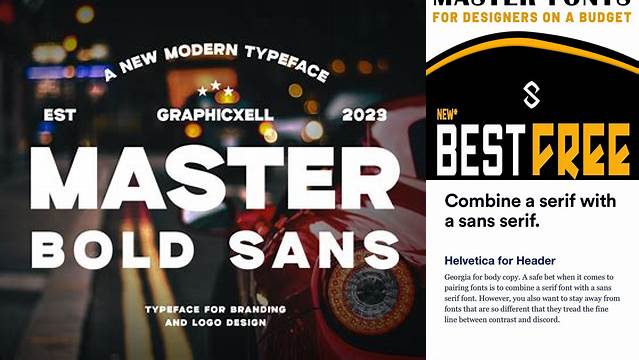
Master Fonts: Free Downloads For Stunning Typography
Hey guys! Are you on the hunt for master fonts free download options to level up your design game? You've landed in the right place! In this guide, we're diving deep into the world of fonts, exploring where you can snag them for free, how to choose the perfect ones for your projects, and some essential tips for using them effectively. Let's get started!
Why Fonts Matter: The Power of Typography
Before we jump into the nitty-gritty of free font downloads, let's quickly chat about why fonts are so crucial in the first place. Fonts, or typefaces, are the visual representation of your words. They're not just about legibility; they're about conveying a mood, a personality, and a brand identity. Think about it: a playful, bubbly font might be perfect for a children's book, but it would look totally out of place on a corporate website. Similarly, a sleek, modern font can add a touch of sophistication to a design, while a vintage-inspired font can evoke a sense of nostalgia. Choosing the right font is like picking the perfect outfit for an occasion—it sets the tone and makes a lasting impression.
In the digital age, where visual communication reigns supreme, typography has become an even more critical element of design. Whether you're creating a website, a marketing campaign, a social media post, or even a simple document, the fonts you choose can significantly impact how your message is received. A well-chosen font can grab attention, enhance readability, and reinforce your brand's message. On the flip side, a poorly chosen font can make your design look amateurish, confuse your audience, and even undermine your credibility. So, if you're serious about making a statement with your designs, paying attention to your typography is an absolute must. Plus, with so many amazing free font resources available, there's really no excuse not to explore the possibilities and find the perfect fonts to bring your creative vision to life. Experimenting with different font pairings, font sizes, and font styles is a fantastic way to add depth and personality to your designs.
Where to Find Master Fonts for Free
Now for the exciting part: where can you find these amazing fonts without spending a dime? The internet is a treasure trove of free font resources, but it's essential to know where to look and how to navigate the licensing agreements. Here are some of my favorite places to find master fonts free download options:
1. Google Fonts
Google Fonts is a massive library of open-source fonts that are free to use for personal and commercial projects. This is my go-to resource for finding high-quality, web-friendly fonts. The interface is super user-friendly, allowing you to easily browse, filter, and preview fonts. You can search by category (serif, sans-serif, display, handwriting, etc.), font properties (thickness, slant, width), and even language. Plus, Google Fonts integrates seamlessly with popular design tools like Adobe Creative Suite and web development platforms, making it a breeze to incorporate them into your projects. One of the best things about Google Fonts is that you can be confident that the fonts are optimized for the web, meaning they'll load quickly and display correctly across different browsers and devices. With hundreds of fonts to choose from, you're sure to find some gems that perfectly suit your needs.
When exploring Google Fonts, don't be afraid to experiment with different font pairings. Combining a serif font with a sans-serif font, for example, can create a visually appealing contrast. You can also use the “Pairings” tab on the Google Fonts website to see suggested font combinations. Another great feature of Google Fonts is the ability to download the fonts directly to your computer for use in desktop applications. This is particularly useful if you're working on print projects or using design software that doesn't directly integrate with Google Fonts. Finally, remember to check the licensing information for each font you download, even though they are generally free to use, it's always a good practice to be aware of any specific usage restrictions. With its vast selection, ease of use, and rock-solid reliability, Google Fonts is an indispensable resource for any designer or content creator.
2. Font Squirrel
3. DaFont
DaFont is a classic in the free font world, boasting a massive collection of fonts contributed by designers from all over the globe. It's a fantastic resource for finding unique and creative fonts that you might not find elsewhere. However, it's essential to pay close attention to the licensing terms for each font on DaFont, as they vary widely. Some fonts are free for personal use only, while others are free for commercial use. The website itself is straightforward to navigate, with a simple search bar and a categorized browsing system. You can browse fonts by themes like “Fancy,” “Foreign Look,” “Techno,” and “Bitmap,” which can be helpful if you're looking for a specific style. DaFont is particularly popular for finding display fonts, which are fonts designed for headlines and other prominent text elements.
One thing to keep in mind when using DaFont is that the quality of fonts can vary significantly. Since the fonts are contributed by a wide range of designers, some may be more polished and professional than others. It's always a good idea to preview the font in different sizes and contexts before committing to using it in your project. Also, be sure to check for kerning and other typographic issues that might affect the readability of the font. Despite these considerations, DaFont remains a valuable resource for finding free fonts, especially if you're looking for something a little bit different or unconventional. The sheer volume of fonts available means that you're likely to find something that sparks your creativity. And remember, the key to using DaFont effectively is to be diligent about checking the licensing terms and carefully evaluating the quality of each font before using it in your projects. By exercising a bit of caution and discernment, you can unearth some true typographic gems on DaFont.
4. Creative Market (Free Goods)
Creative Market is a marketplace for design assets, including fonts, graphics, and templates. While most of the products on Creative Market are paid, they also offer a selection of free goods every week. This is a great way to snag premium-quality fonts and other design resources without spending any money. The free goods change regularly, so it's worth checking back frequently to see what's available. Creative Market is known for its high-quality products, so the free fonts you find here are likely to be well-designed and professionally crafted. In addition to free fonts, you might also find free icons, mockups, and other useful design elements.
Master Fonts Free Download: Your Design Secret Weapon
So, there you have it, guys! Everything you need to know about master fonts free download options and how to use them effectively. With a little knowledge and some careful consideration, you can elevate your designs with amazing typography without breaking the bank. Happy designing!